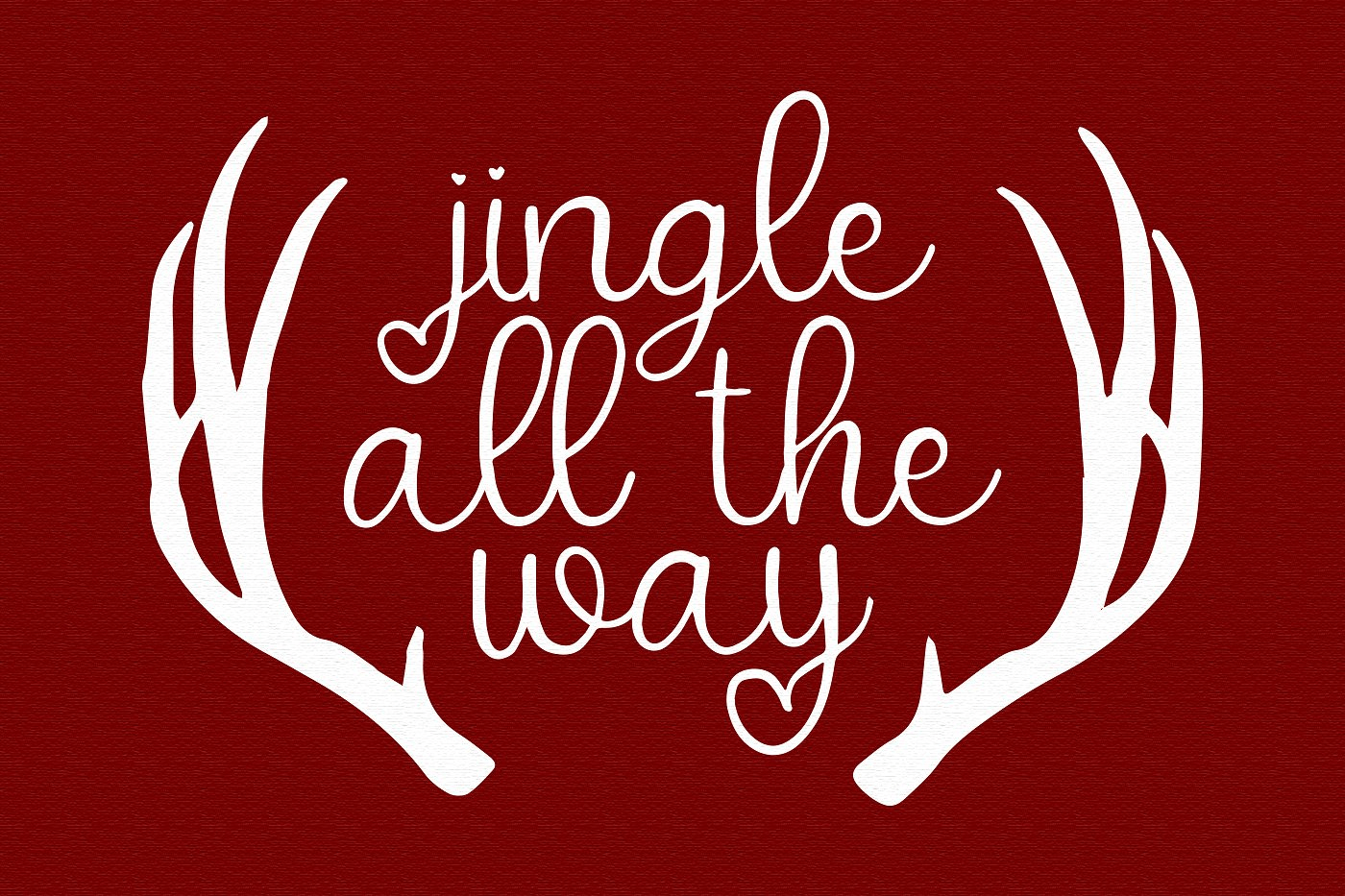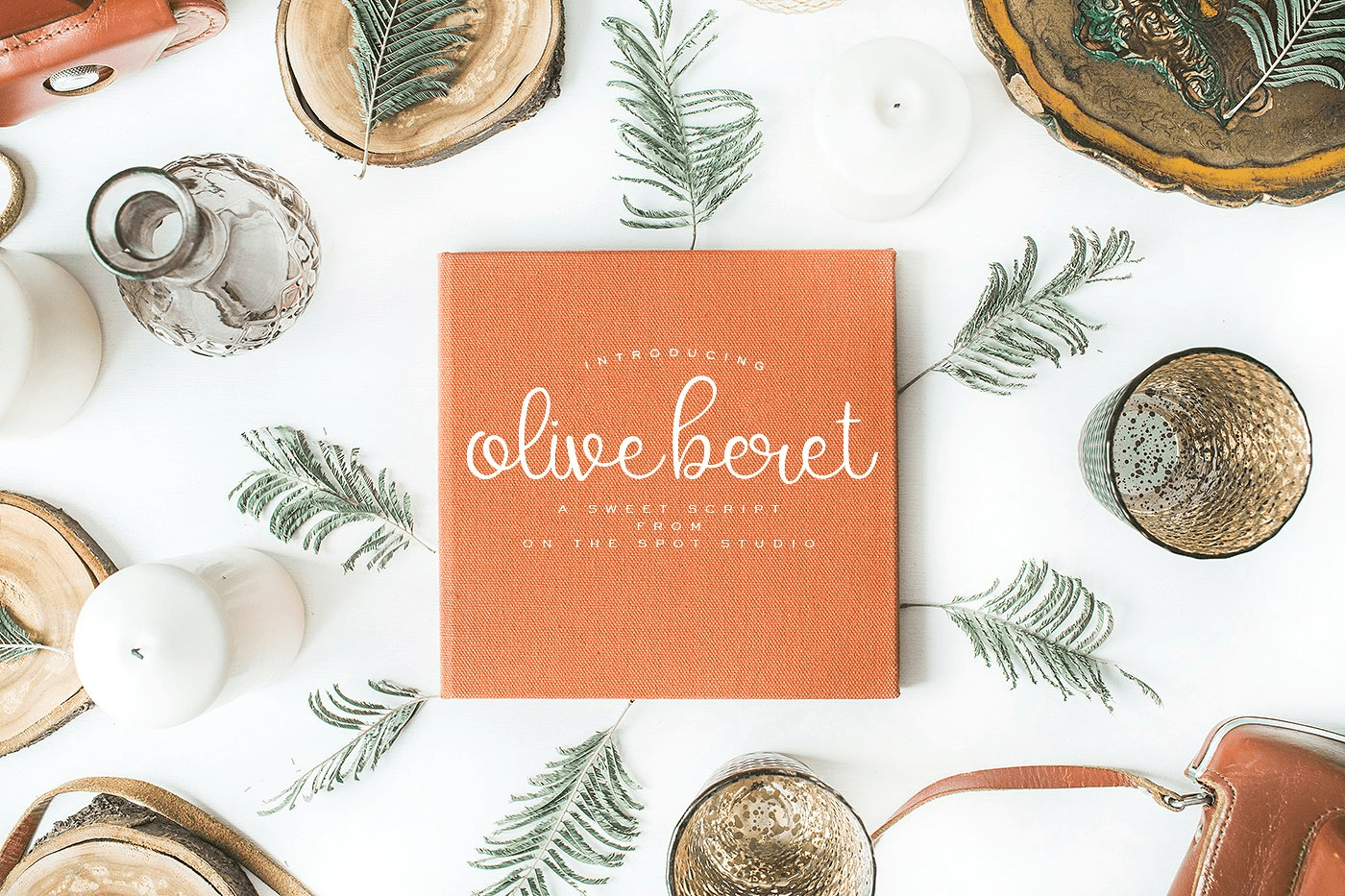
HomeFont BrosHandwrittenOlive Beret HandwrittenScripts: Casual Olive Beret FacebookXPinterestWhatsApp 1 of 2 About Olive Beret is a brand new script from OTSS! Sweet and simple, great for crafting, branding and more!  DOWNLOAD NOW People also explored Burning Daylight Font Marcella Font Melisa Font Christmas Ornament Font Somersault Font Reaching Script Font Navisha Script Font Delgian Font Asterism 223 0 TagsOlive Beret Font Previous articleMachina GNext articleMayence LEAVE A REPLY Cancel reply Comment: Please enter your comment! Name:* Please enter your name here Email:* You have entered an incorrect email address! Please enter your email address here Website: Save my name, email, and website in this browser for the next time I comment. Personal Use Free Alista Font Personal Use Free Read more about this font Blue Highway Personal Use Free Read more about this font Sabina Illusion Personal Use Free Read more about this font Latifah Personal Use Free Read more about this font BLOG Using Fonts in Digital Marketing: Tips to Strengthen Your Brand Identity In the realm of digital marketing, every visual element plays a crucial role in shaping a brand's identity, and fonts are no exception. The... Free vs Paid Fonts: Why Investing in Premium Fonts Is Worth It Fonts That Capture the Spirit of New York City Elegant Wedding Invitation Fonts – Handwritten & Script Fonts